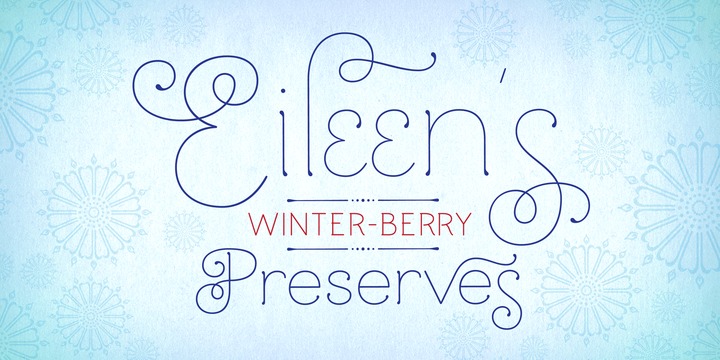
Mandevilla
Mandevilla is the original creation of this font was based on the idea of generating a font for display, titling, and logos. Later, the originator’s exploration as well as drawing of forms available in nature inspired this font. This eye catching, refined, elegant, yet quirky font is an ideal choice for employing slim filaments. The attractive … Read more